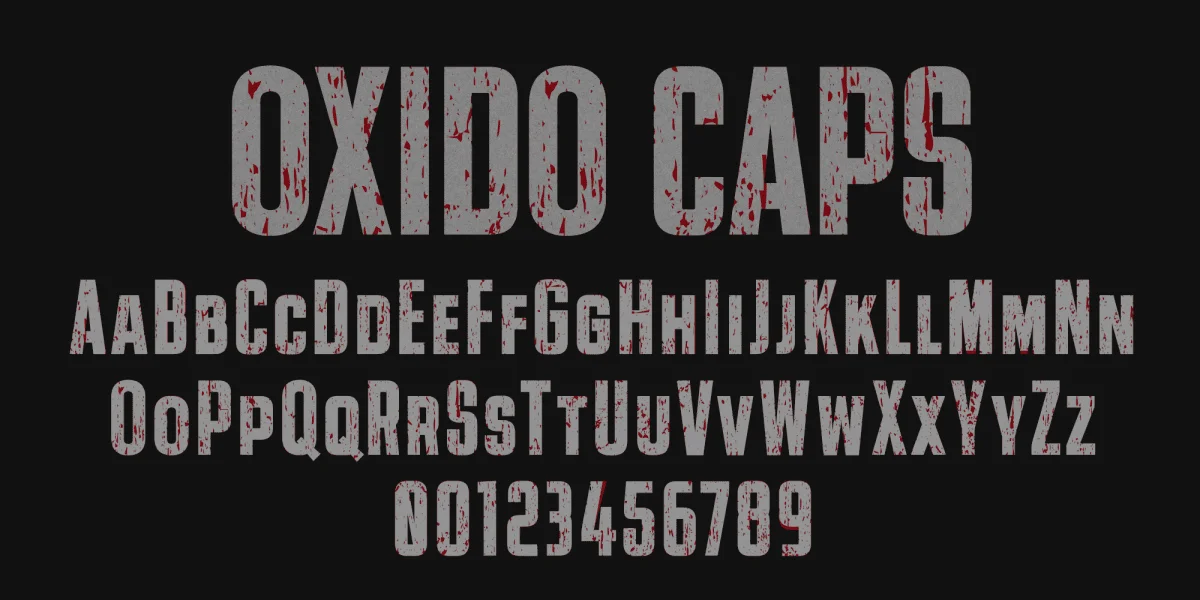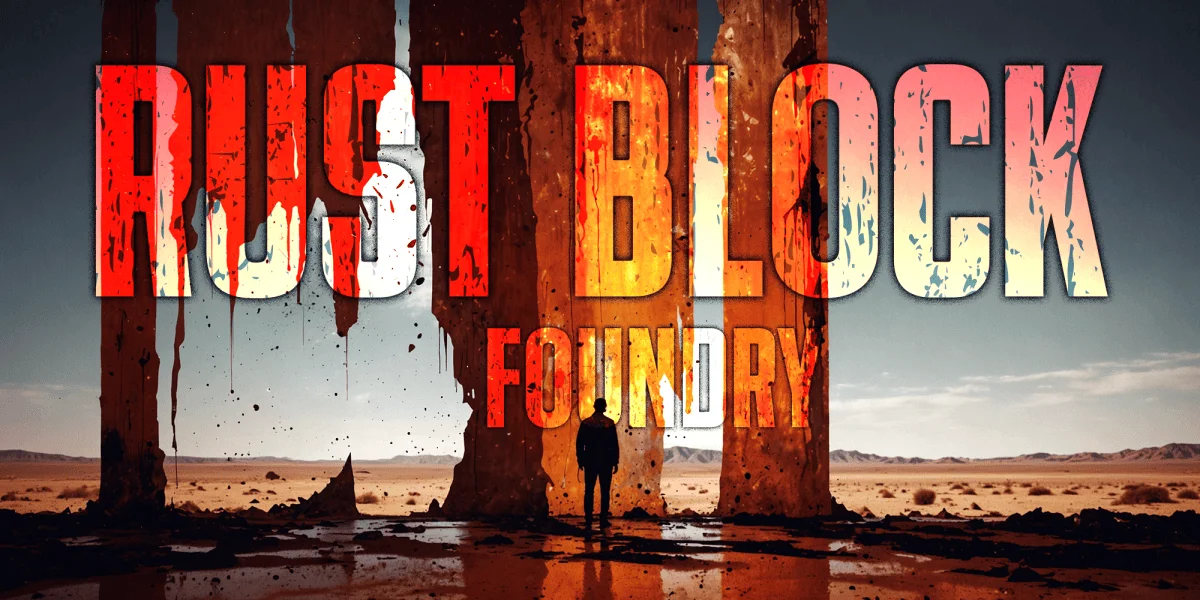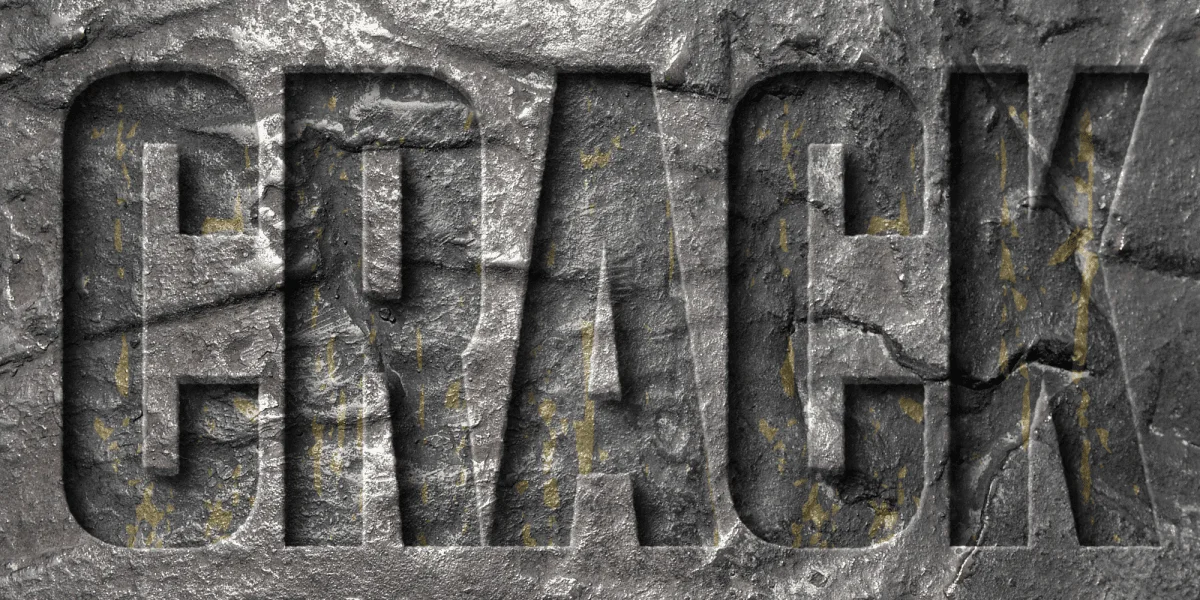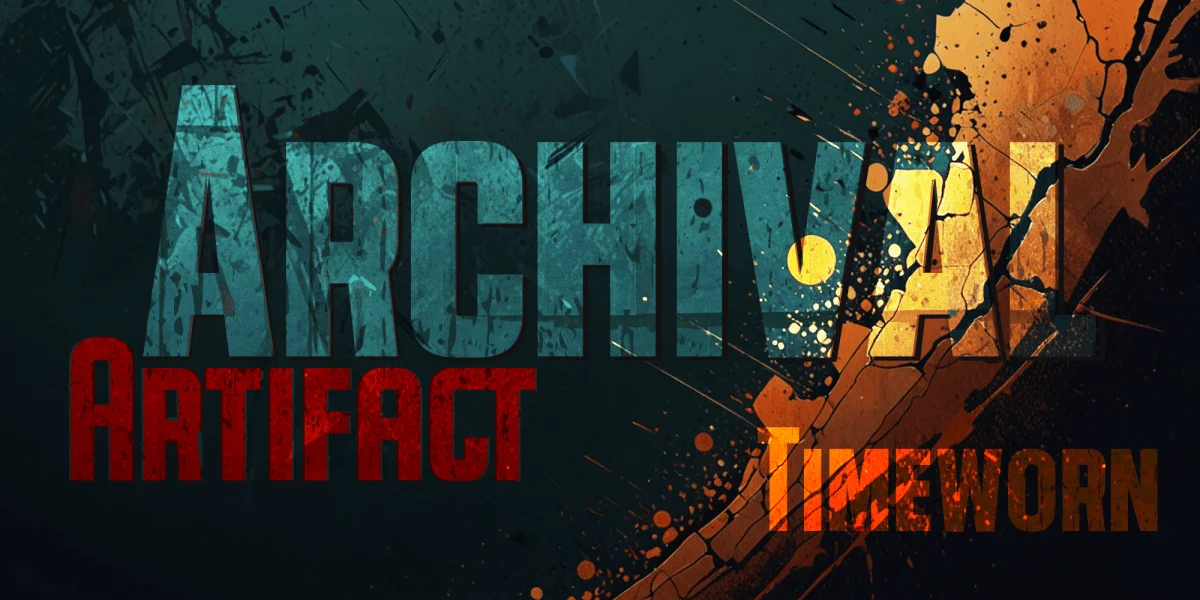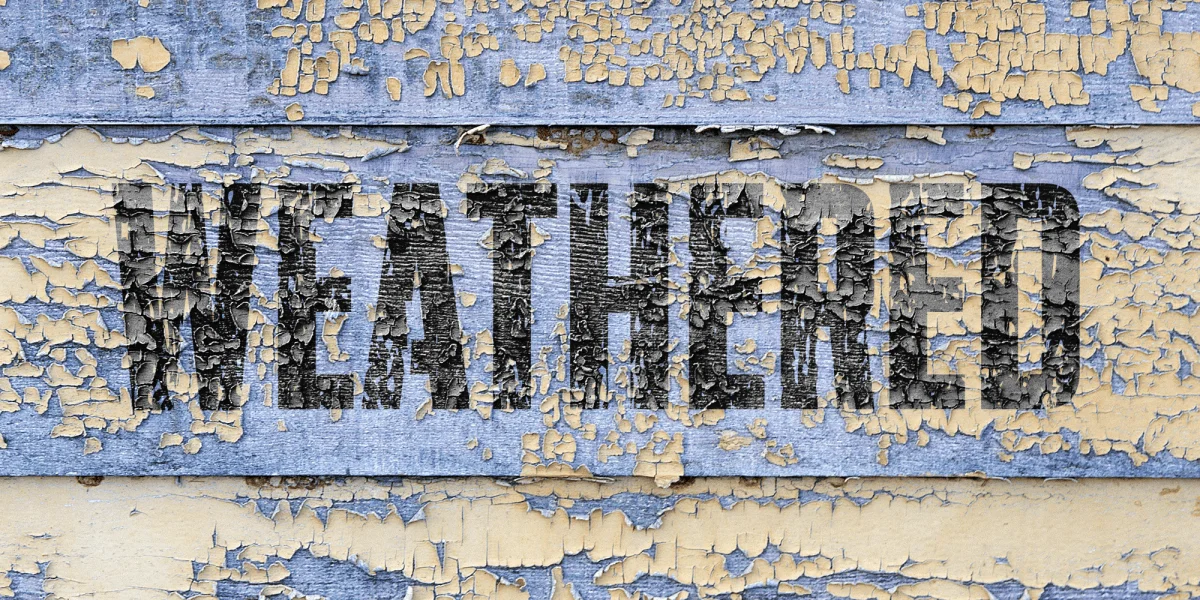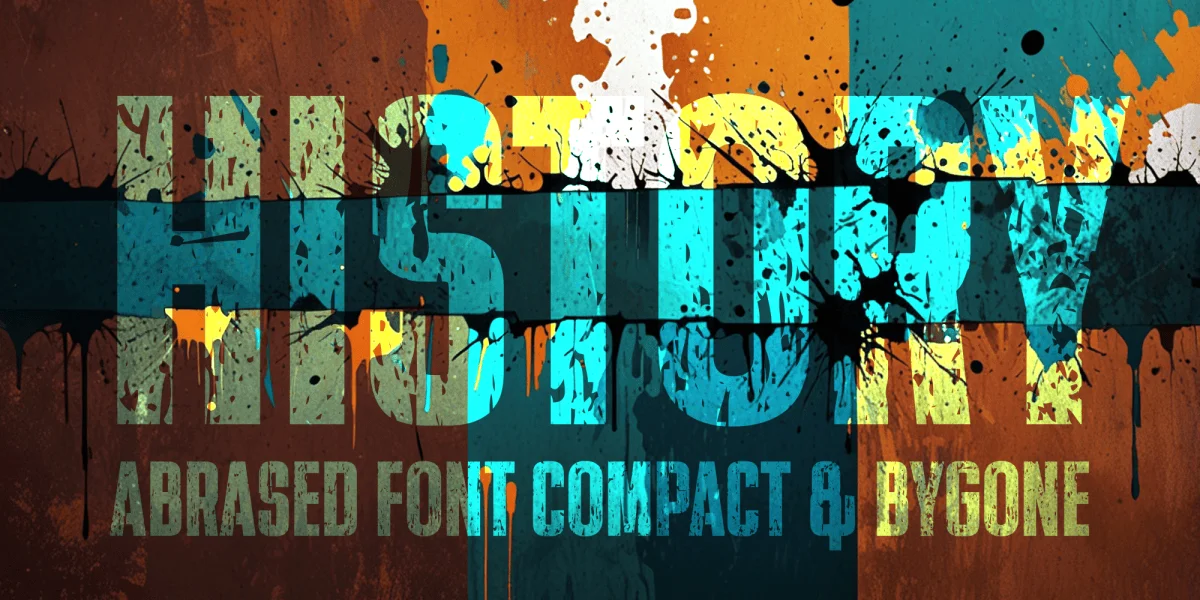
Oxido was born from a powerful idea: to capture the relentless imprint of time. The roughness of rust, the industrial toughness, and the beauty of imperfection merge into a typeface that doesn't sacrifice legibility or typographic sophistication.
It's not just an eroded—or "destroyed"—font; it's a visual testament to resilience and authenticity. Each glyph in Oxido is a metaphor for the passage of time, combining technical rigor with expressive power.